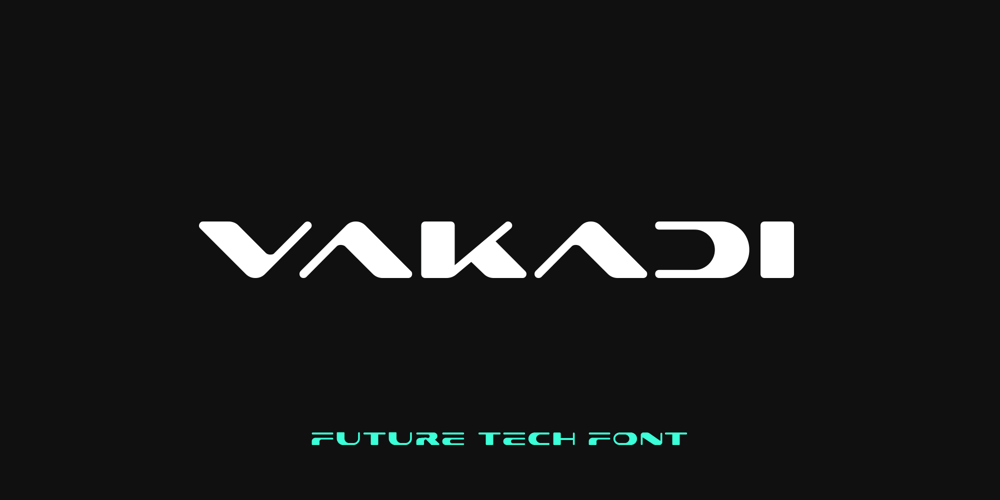
VakaDi Font Family was designed by Dmytro Poliakh and published by Sentavio. VakaDi contains 1 styles and family package options. vakaDi is stylish futuristic tech font designed for such areas as hi-tech, future, sport, space, army, games and many others.In the process of creating the font, we faced the choice of which letters are better – this or that… Each of them was beautiful in its own way and so we decided to include them all!:)Some you will find in upper case, others in lower case.Multilingual support (Latin extended).It is designed for header and text both.